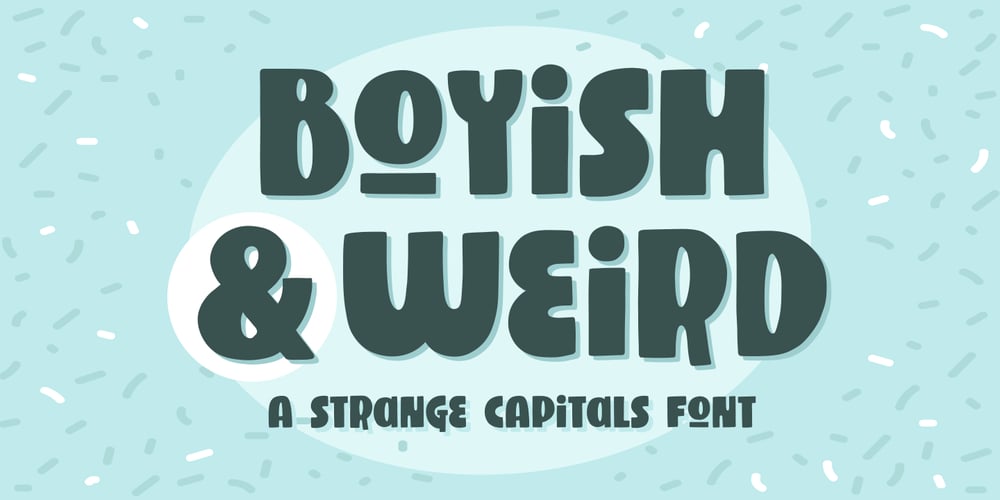
Boyish & Weird
Boyish & Weird font
Boyish & Weird Font Family was designed by Rachel White and published by Rachel White Art. Boyish & Weird contains 1 styles and family package options. Say hello to Boyish & Weird! (I actually don’t know what boyish is, but I do like how that word looks with these letters.) I had a lot of fun making this weird little font. It has oval cutouts, heavy lines, and plenty of whimsical details.